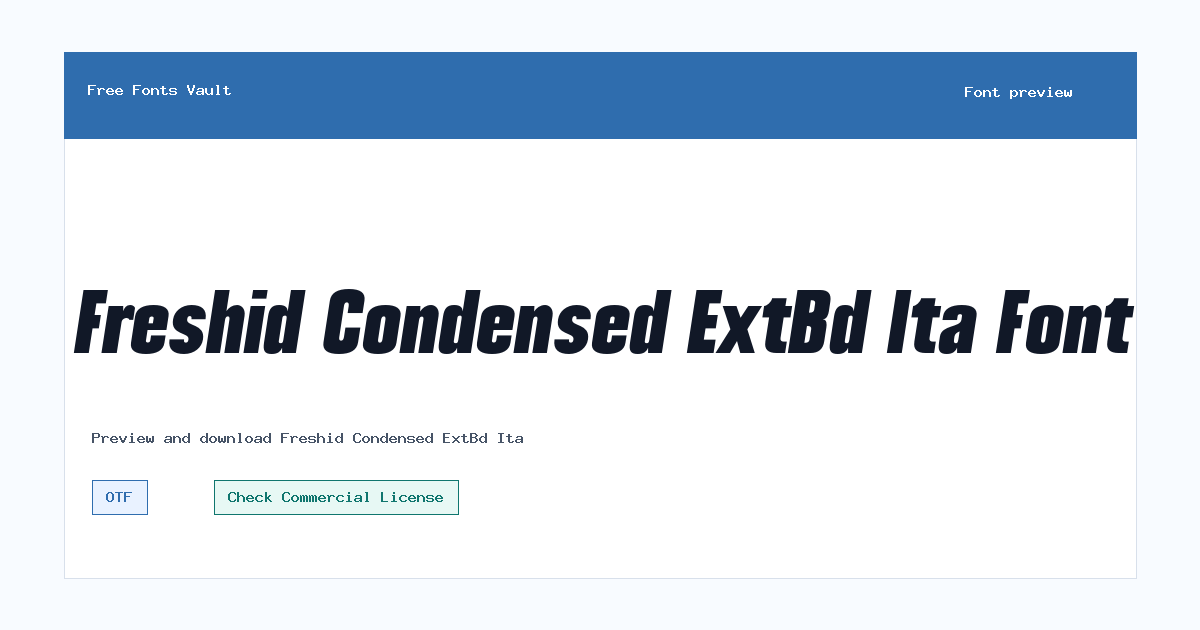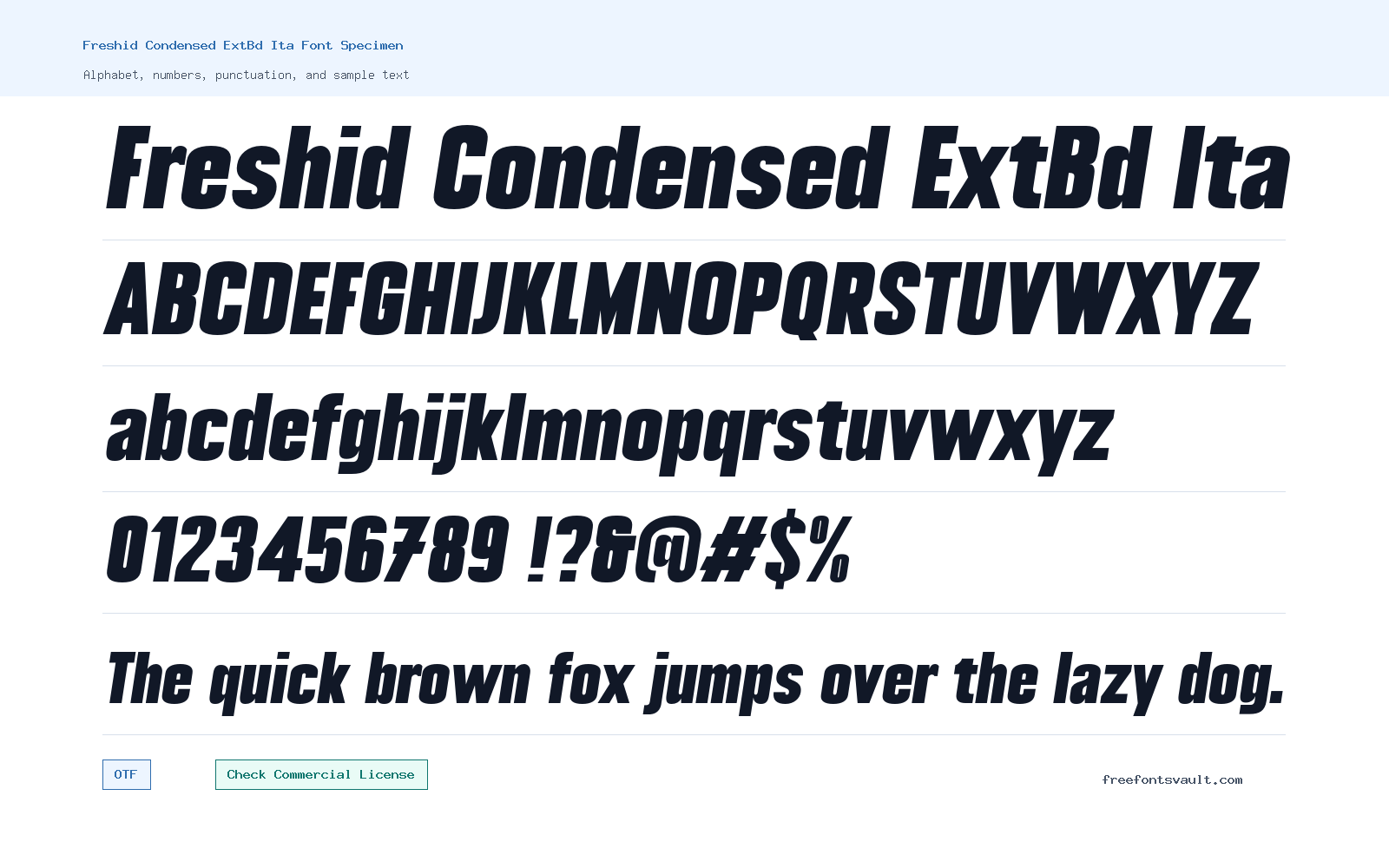
Freshid Condensed ExtBd Ita
- Designer Wafi ZImamul
- Foundry Wappitype
Freshid Condensed ExtBd Ita font.
Freshid Condensed ExtBd Ita is a condensed italic display font from the Freshid family, made for text that needs a tall, forceful look without taking up much horizontal space.
Because the style is bold, narrow, and italic at the same time, it works best with confident wording. Short calls to action, compact campaign titles, and energetic labels usually read better than long descriptive phrases in this cut.
About Freshid Condensed ExtBd Ita
The name points to an extra-bold condensed italic style, so it is best treated as a display face rather than a long-reading text font. Its narrow width can help large words fit into banners, posters, thumbnails, and title graphics, while the italic angle adds movement to short phrases.
- Condensed extra-bold italic display style
- Posters, banners, and bold title graphics
- Short display text, thumbnails, labels, and promotional layouts
Freshid Condensed ExtBd Ita is credited to Wafi ZImamul, with Wappitype listed as the foundry.
For best results, use Freshid Condensed ExtBd Ita in short text settings. Pair it with a simple, readable sans serif for body copy so the condensed italic style can stay focused on headlines and accents. The extra-bold italic cut is best used when the headline needs both weight and motion. Test short words first, then compare the same phrase at poster size and thumbnail size. If the slant makes the text feel crowded, add tracking, increase line height, or use the non-italic weight for supporting words. Keep body copy, prices, and longer notes in a simpler font. This usually improves readability.
What kind of font is Freshid Condensed ExtBd Ita?
It is a condensed extra-bold italic display font in OTF format.
Is this font good for body text?
It is better for short display text. A condensed extra-bold italic style can become tiring or hard to read in long paragraphs.